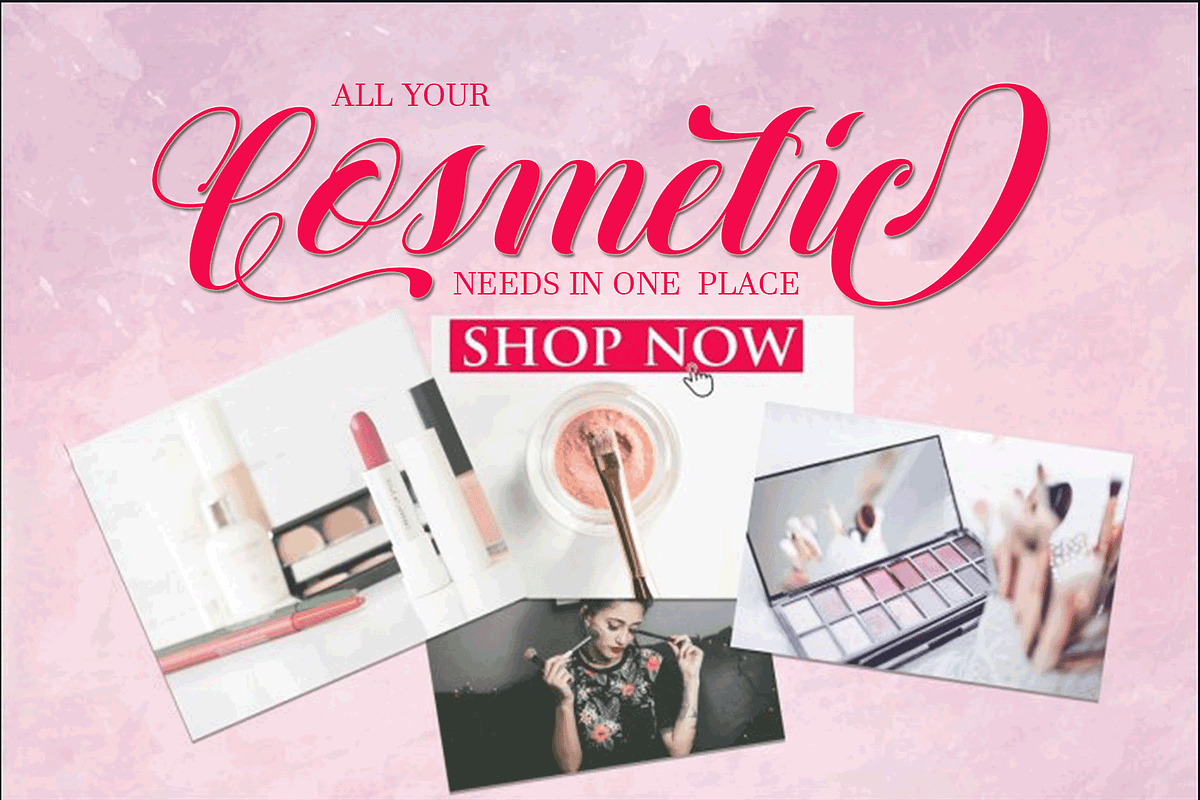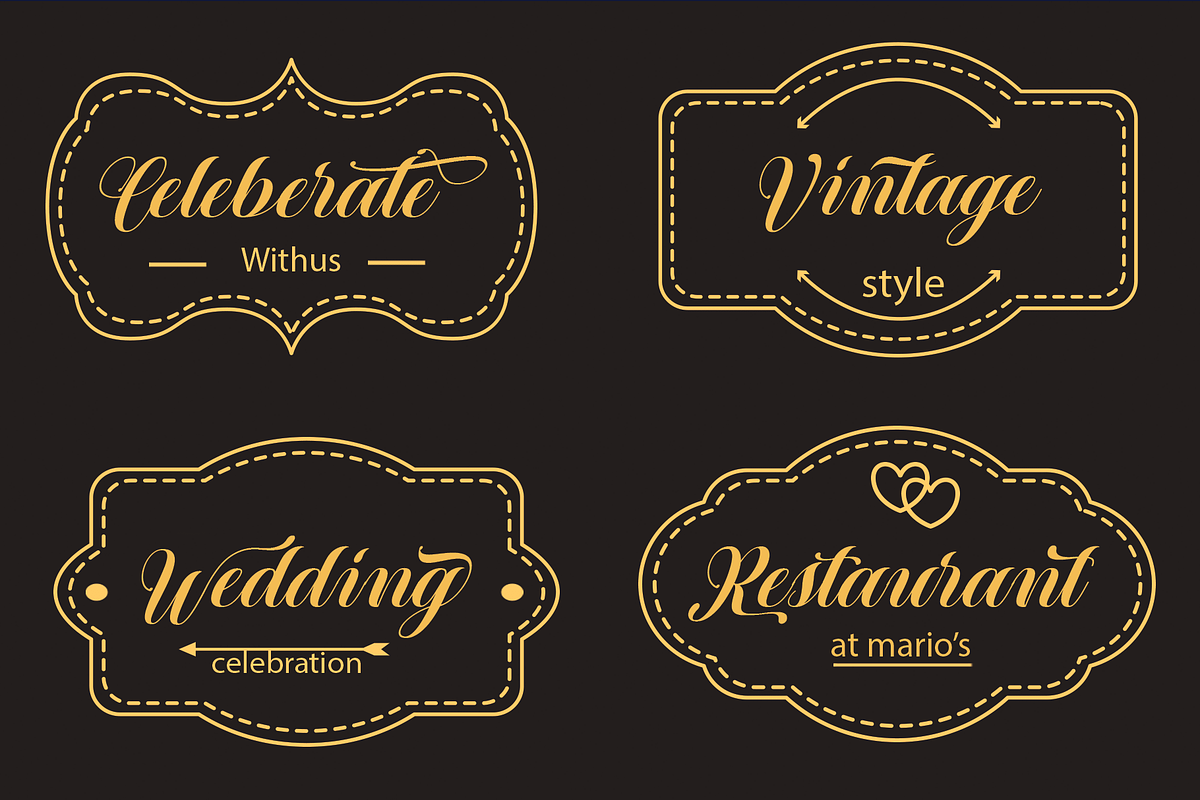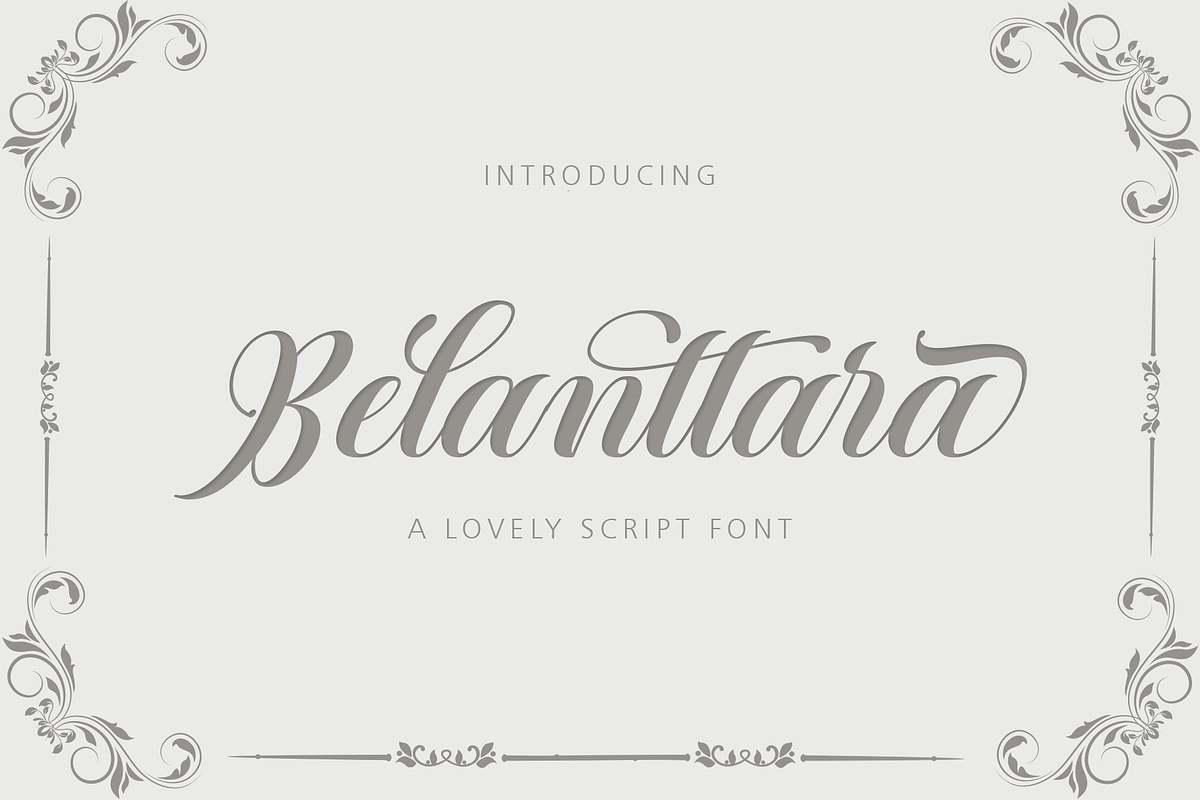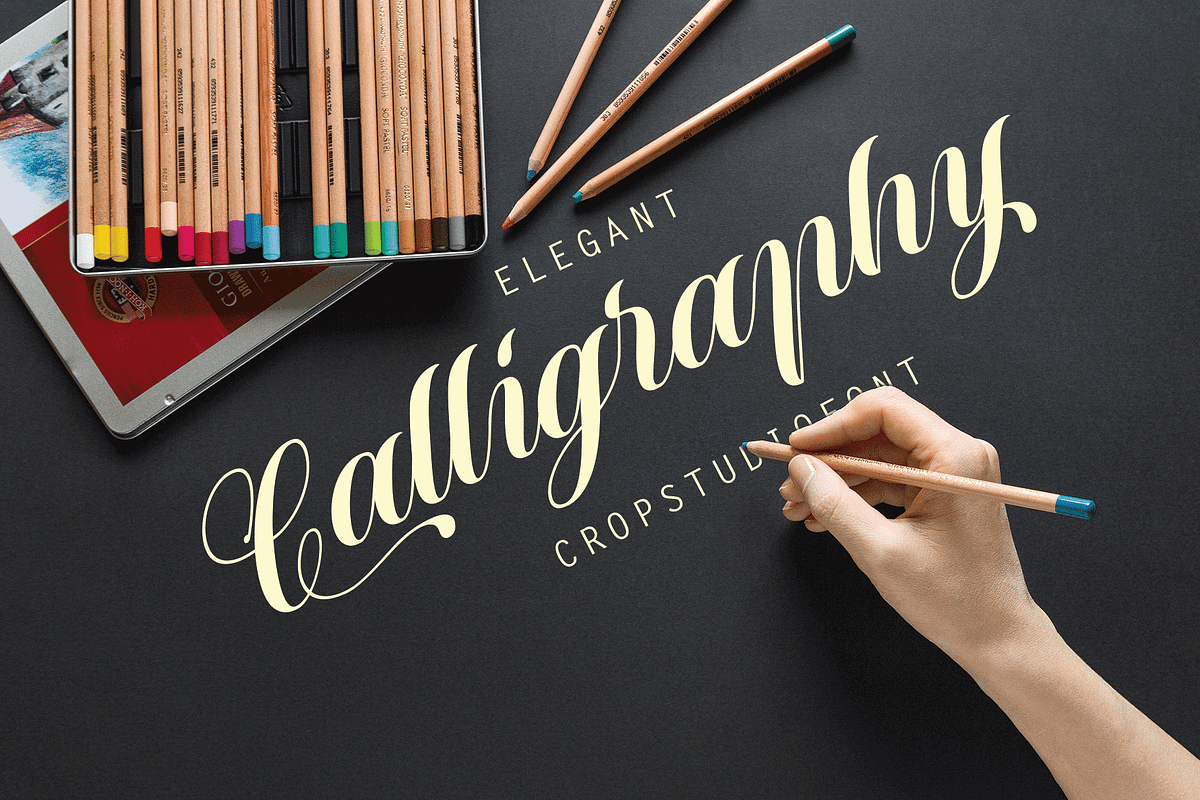
Belanttara
Belanttara, a work that is purely handwritten, has natural characteristics. It's perfect for invitations, signatures, blogs, social media, business cards, product brands.
Belanttara is a simple font that has Stylistic standards, Stylistic Alternatives. and includes uppercase and lowercase letters, numbers and punctuation.